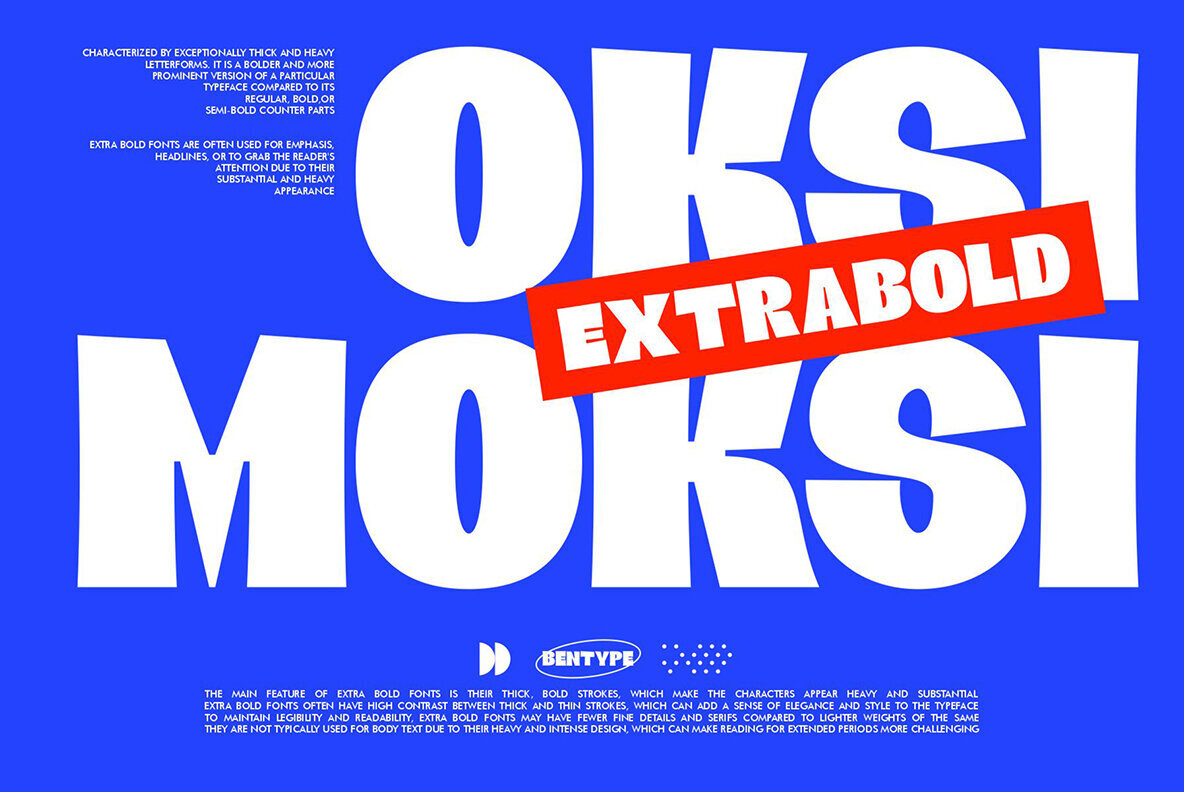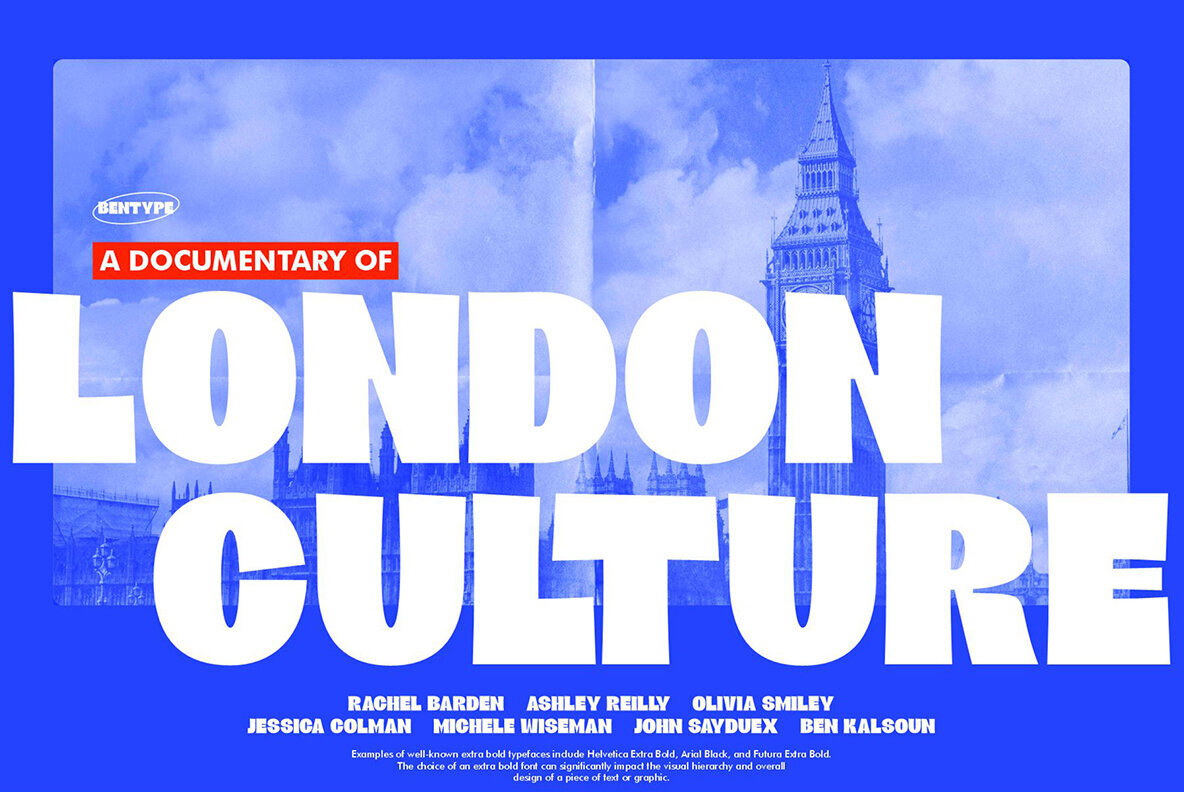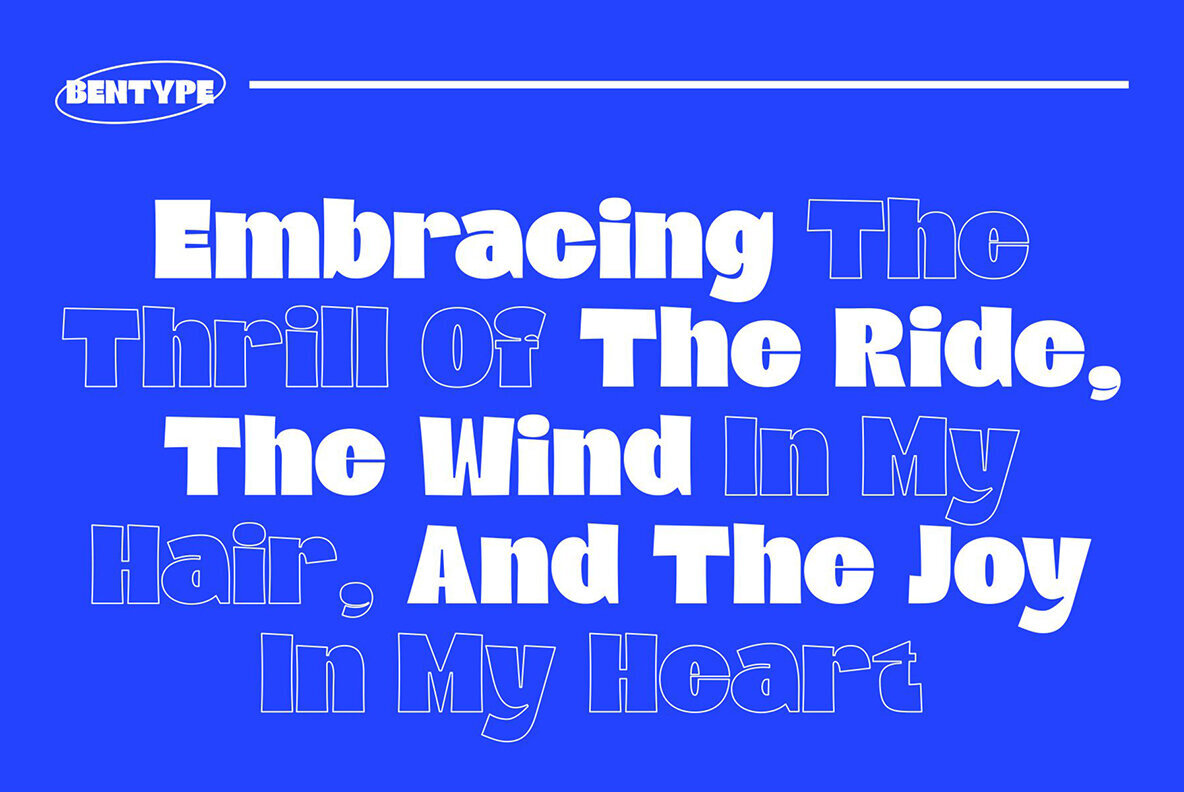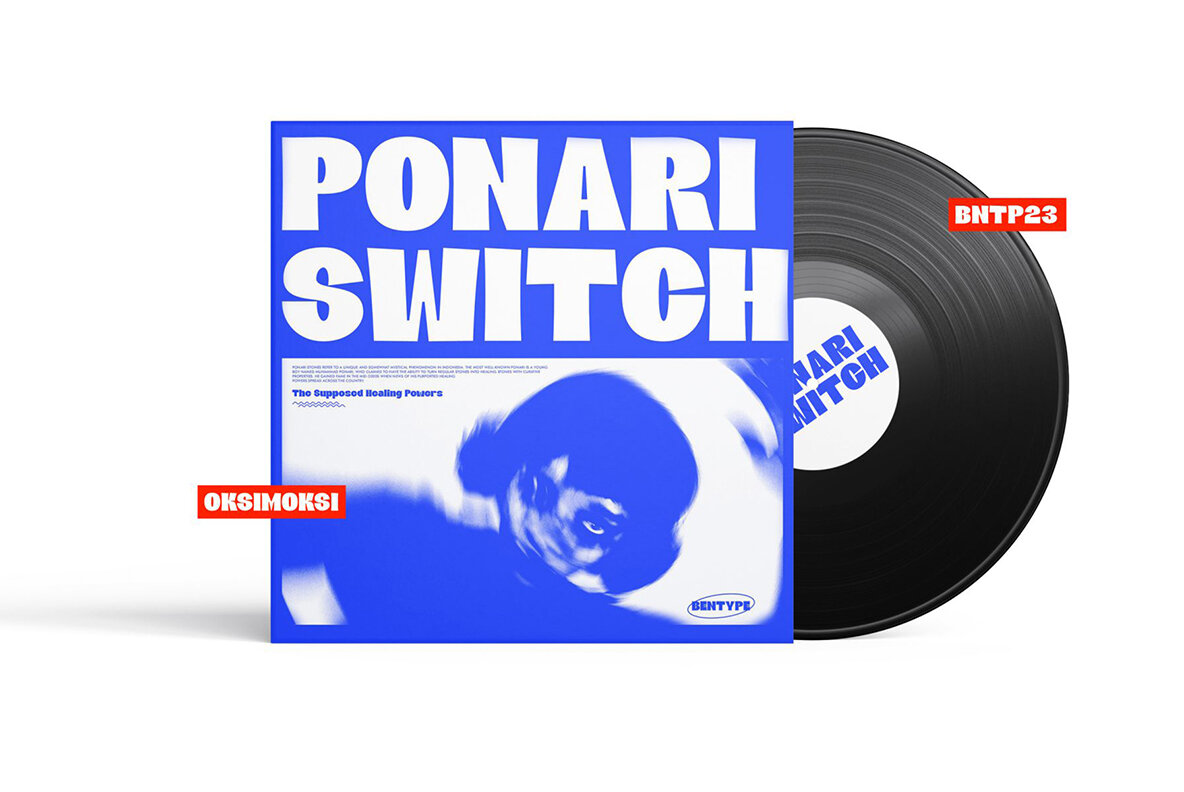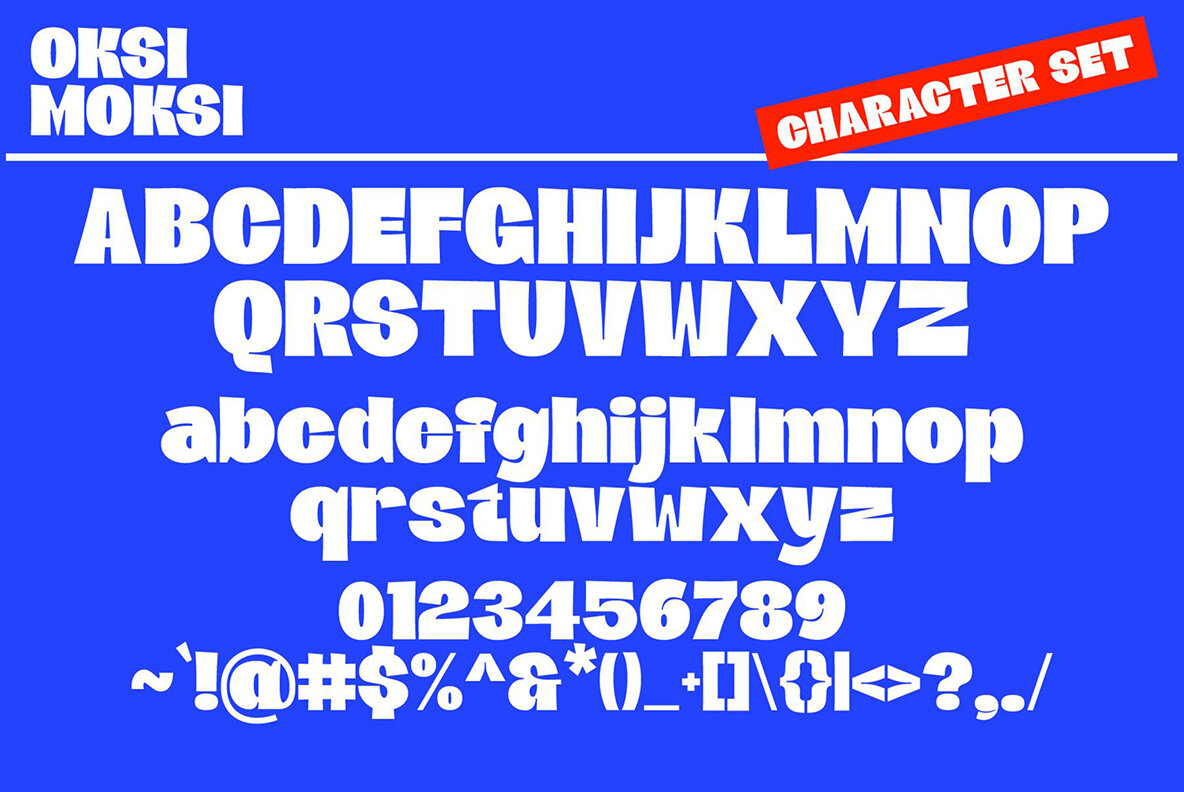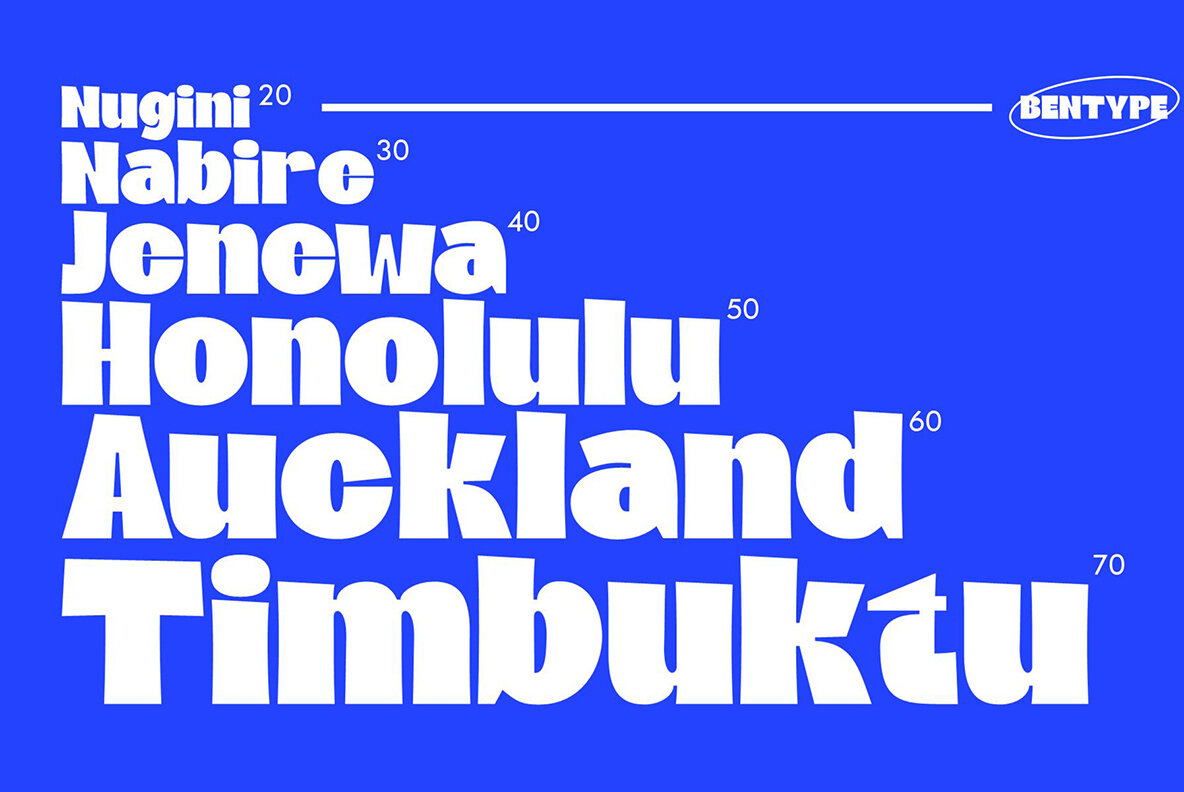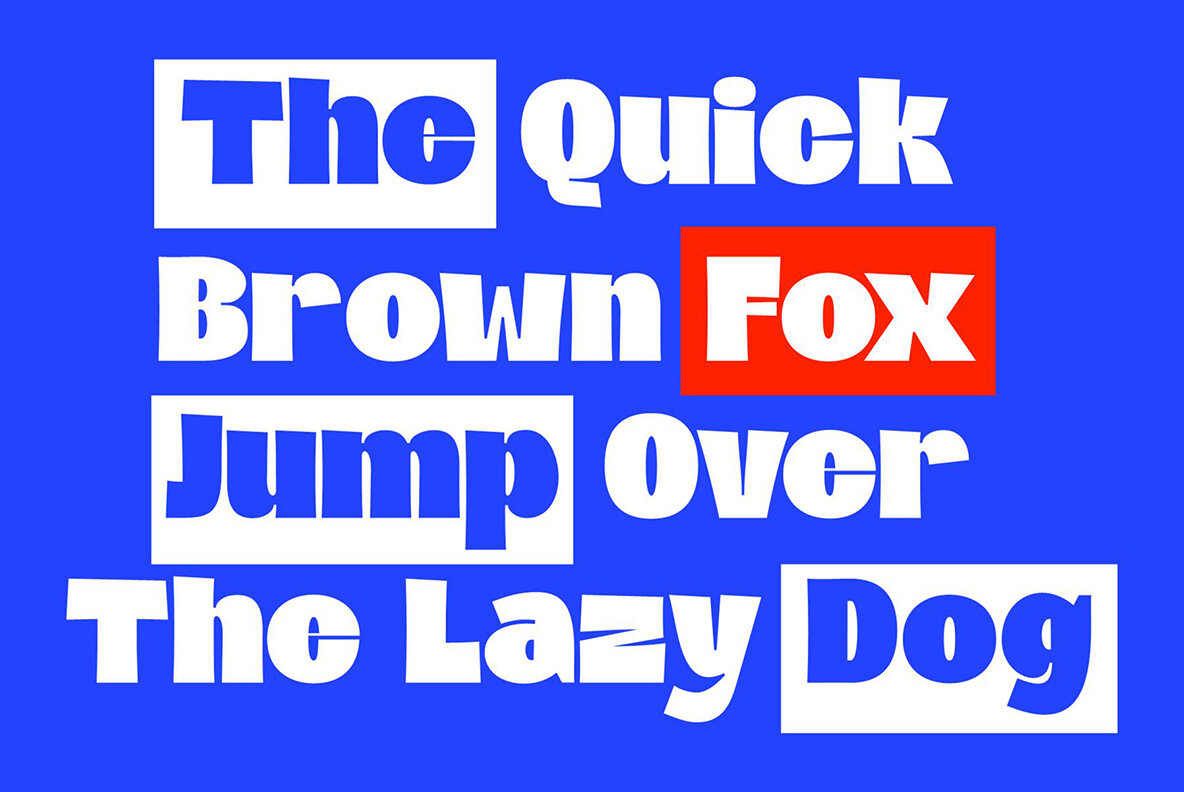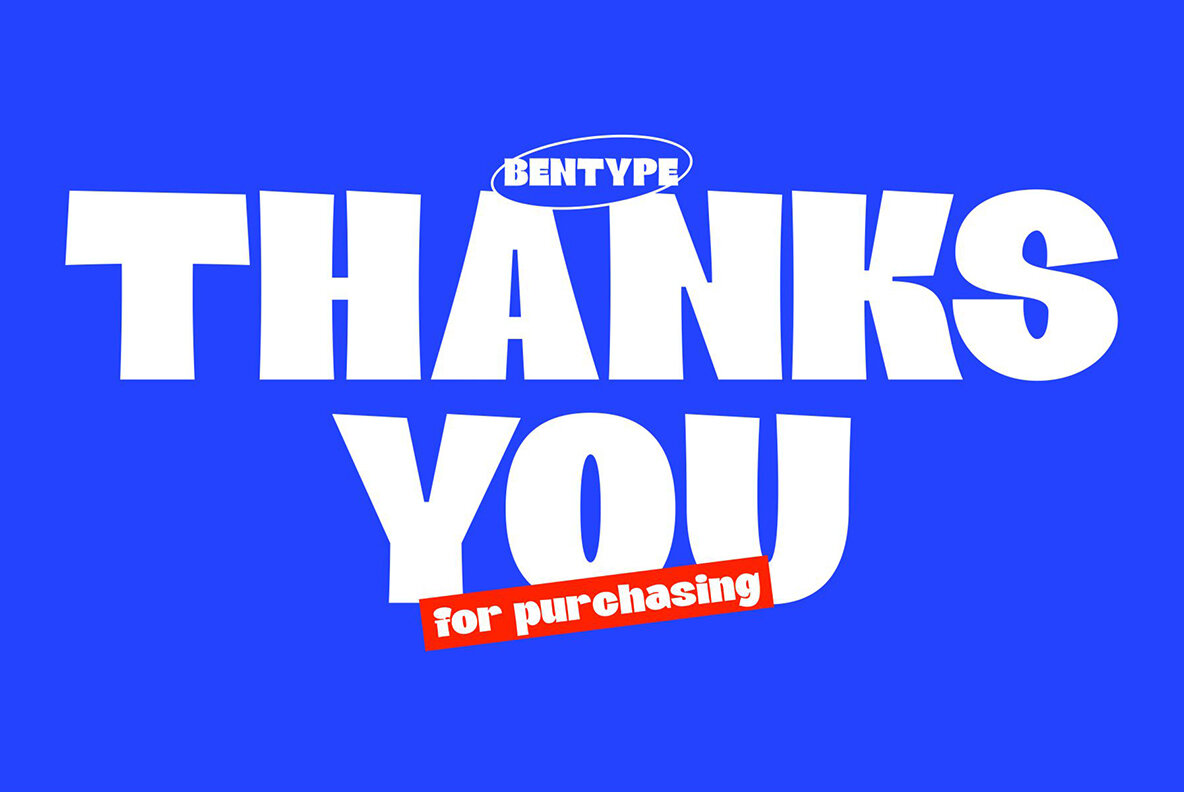
Oksi Moksi Font
Oksimoksi
Oksi Moksi is an extra bold typeface distinguished by its strikingly thick and heavy letterforms, making it the ideal choice for those looking to create a strong visual impact. Perfect for headlines, poster designs, or any project where grabbing attention is paramount. This typeface offers a commanding presence, surpassing regular, bold, and semi-bold interpretations of its style.Oksi Moksi Bold Typeface